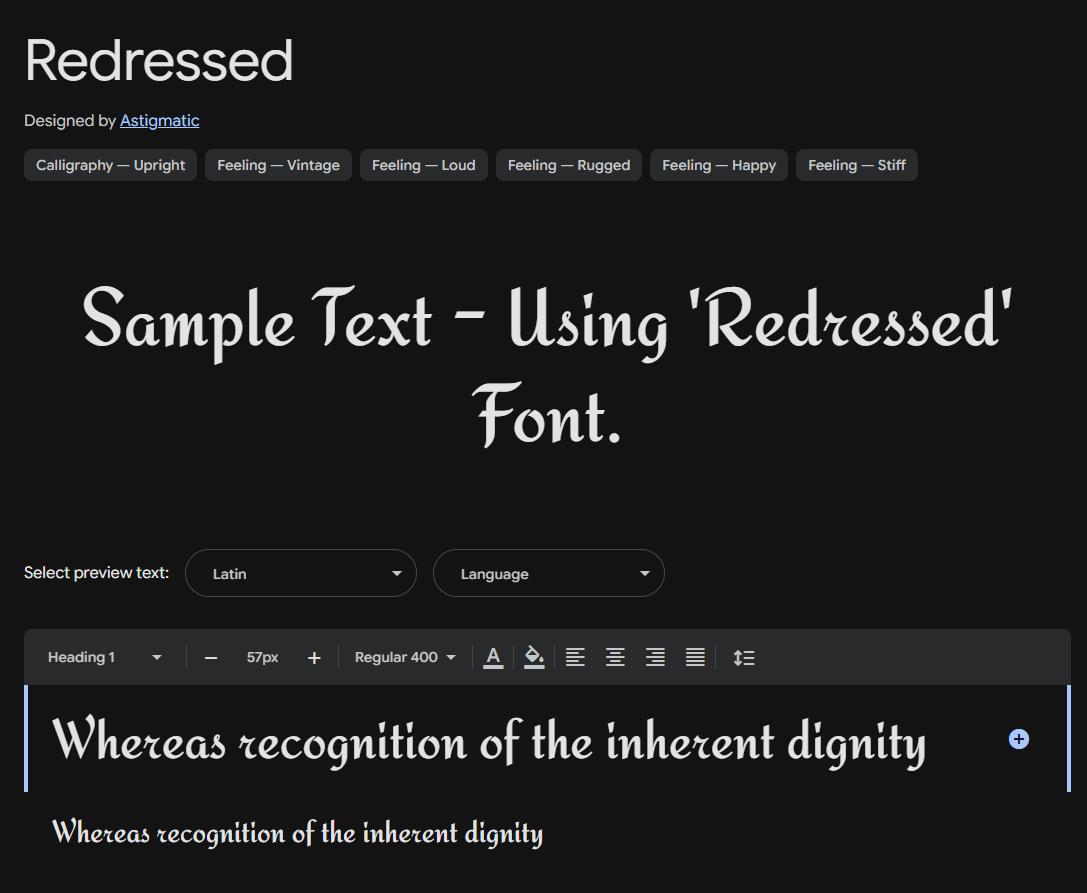
Redressed, a singular-style masterpiece engineered by Astigmatic, functions as a sophisticated typographic bridge between formal calligraphic tradition and contemporary digital utility. By recalibrating the vertical stress and stroke modulation typical of classic scripts into a more upright, stable stance, this typeface achieves a rare equilibrium between ornamental flair and screen-ready legibility. Its architecture prioritizes optimized x-heights and open counters to mitigate the rendering artifacts often found in fluid letterforms, making it a high-performance choice for designers seeking to inject artisanal personality into semantic web layouts without compromising the technical rigors of modern user interface standards.
Redressed stands as a sophisticated hybrid display face designed by Astigmatic, uniquely synthesizing the fluid elegance of 19th-century calligraphy with a strictly non-italicized, upright vertical axis that defies traditional script conventions. This departure from the standard oblique slant provides a structural "stiff" integrity, yet the typeface's high-contrast terminals and buoyant counters project a "happy" and "loud" visual personality perfect for attention-grabbing headlines. By integrating "rugged," organic stroke modulation that mimics hand-inked heritage, the font achieves a "vintage" aesthetic that is simultaneously disciplined and energetic. Its distinctive anatomy bridges the gap between formal Roman construction and spirited script flourishes, resulting in a semantic versatility where the "loud" presence of calligraphic strokes meets a rugged, historical texture, ensuring a rhythmic legibility that is as jovial as it is authoritative.
Redressed, a singular-style hybrid typeface by Astigmatic, is fundamentally unsuitable for high-density information environments such as technical engineering manuals, pharmaceutical labeling, or complex legal disclosures where typographic neutrality and rapid scanability are mandatory. Its unique synthesis of vertical script and Roman letterforms results in inconsistent stroke modulation and non-standard x-heights that impede the saccadic eye movements required for long-form reading, leading to significant cognitive load and visual fatigue. From an accessibility standpoint, the lack of diverse weight families and the decorative nature of its calligraphic terminals fail to meet the stringent contrast and glyph distinction requirements set by WCAG 2.1 guidelines, making it a liability for ADA-compliant digital interfaces or wayfinding systems where legibility under adverse conditions is critical.
Redressed pairs exceptionally well with vintage, boutique, and classical design styles due to its elegant script influences. By analyzing its vertical metrics and moderate x-height, it excels in layouts requiring a balance between traditional calligraphy and contemporary digital legibility.
While Redressed possesses a rhythmic flow, it is generally better suited for short bursts of text rather than dense paragraphs. The narrow character width and distinct script-like terminals can increase cognitive load during extended reading sessions compared to optimized humanist sans-serifs.
Redressed provides a sophisticated focal point for minimalist logos, offering a hand-drawn feel that adds personality to sparse layouts. Its high stroke contrast requires careful monitoring of the vector nodes to ensure visual integrity when scaled down to favicon dimensions.
Geometric sans-serifs like Montserrat or Open Sans create a clean structural contrast against the fluid curves of Redressed. Establishing a clear typographic hierarchy through varied weight distribution helps mitigate visual competition between high-ascender scripts and secondary interface fonts.
Redressed may struggle with legibility on small mobile screens where pixel density or UI spacing is limited. Technical testing at sizes below 14px shows that the thin connecting strokes can break under standard rasterization, potentially compromising WCAG 2.1 accessibility standards.
For editorial design, Redressed serves as a striking headline font that conveys elegance and a refined, literary tone. When set at large point sizes, the unique glyph construction highlights a sophisticated blend of italic and upright structures that commands visual attention.
High-contrast palettes amplify the delicate features of Redressed, making its script-like details pop against dark or vibrant backgrounds. Sub-pixel rendering in modern browsers ensures that the sharp transitions between thick and thin strokes maintain clarity even in monochrome schemes.
Redressed is an excellent choice for luxury packaging because its aesthetic mirrors high-end artisanal craftsmanship and bespoke branding. The font's sophisticated kerning pairs and elegant ligatures provide a premium tactile feel when translated into physical mediums like gold foil stamping or embossing.
Using Redressed in all caps is generally discouraged as it disrupts the natural flow and connectivity inherent in its script-based design. If uppercase use is mandatory, increasing the tracking by at least 10% is necessary to prevent the overlapping of idiosyncratic serifs that characterize its Latin-1 character set.
Redressed is a popular choice for wedding invitations because it balances formal elegance with a modern, approachable script style. Its open counters and distinct descenders ensure that names and dates remain highly readable on textured paper stocks or vellum overlays.